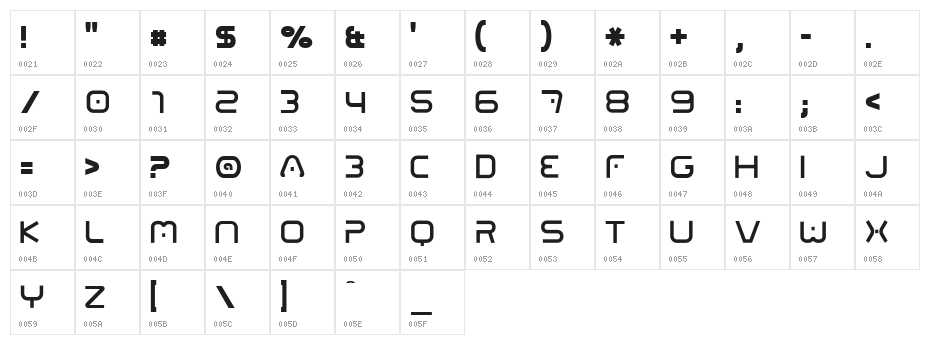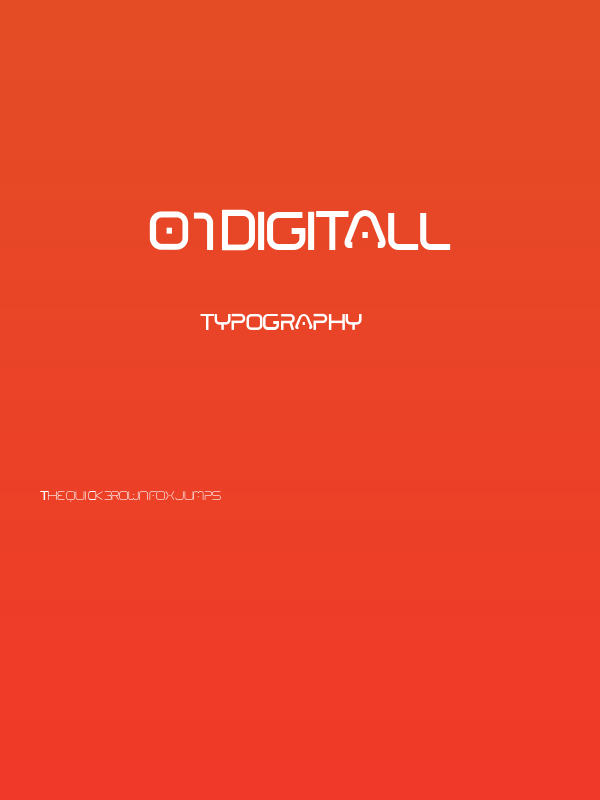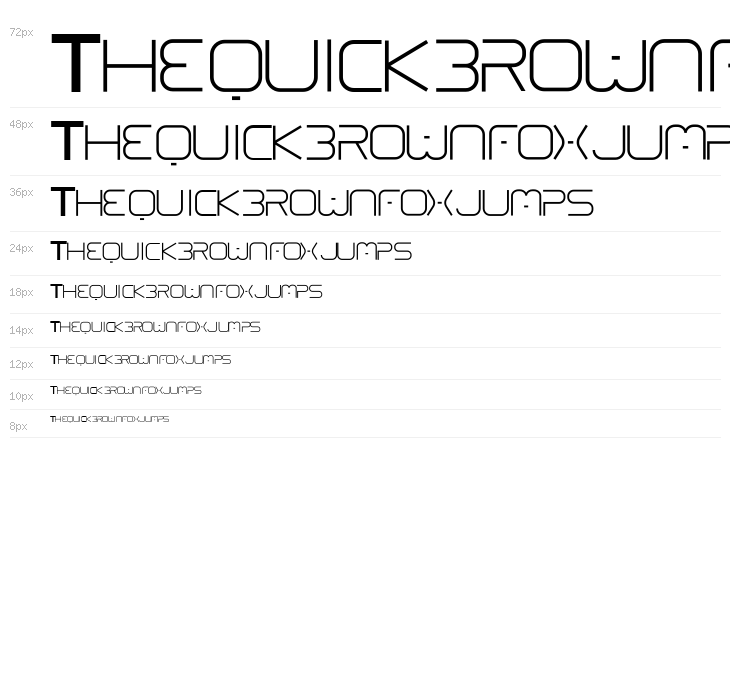
01 Digitall Font
01 Digitall Description
This font features a futuristic and digital aesthetic, characterized by its geometric shapes and clean lines. The uppercase letters are bold and structured, with a distinct block-like appearance that suggests a modern, technological feel. The lowercase letters maintain a similar style but are slightly more open and rounded, providing a nice contrast to the uppercase. Numbers and special characters follow the same design principles, ensuring consistency across all elements. The font's overall look is sleek and contemporary, making it ideal for projects that require a modern and innovative touch.
| Proposed Projects | Ideal for tech-related branding, digital interfaces, futuristic posters, and video game design. |